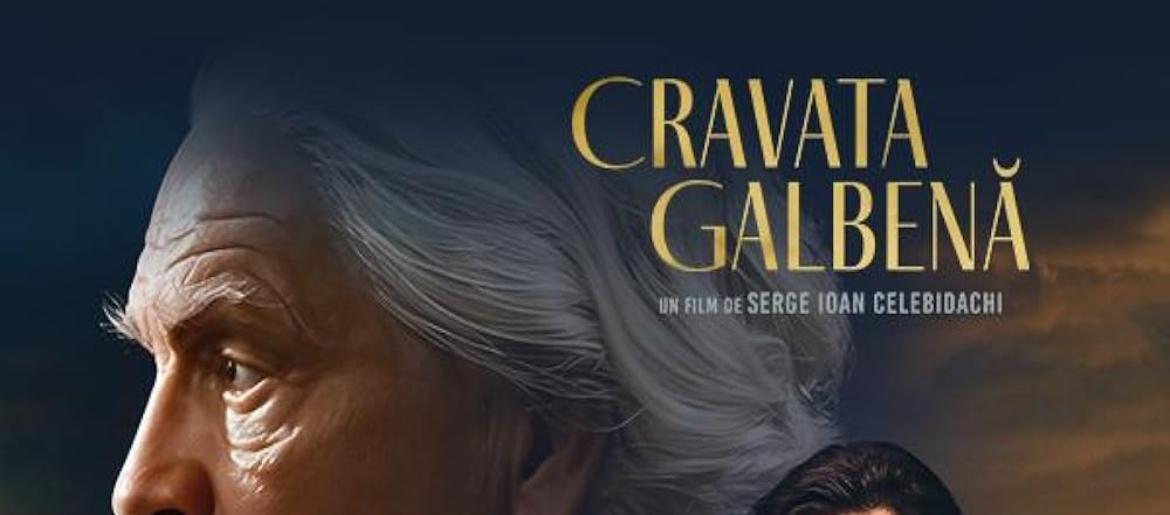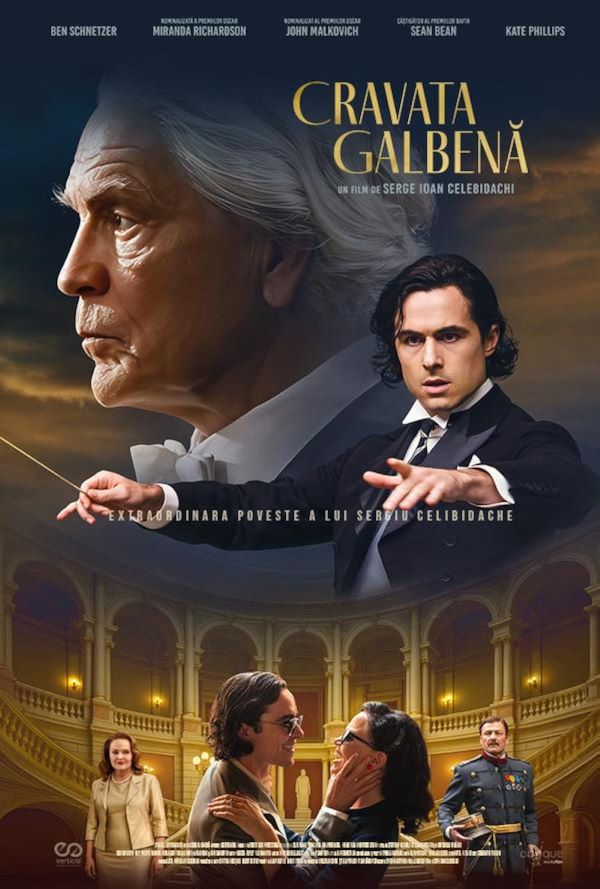
The Yellow Tie Font
What Font Does The Yellow Tie Use?
The Yellow Tie font (from the film also known as Cravata Galbenă) uses Fino Sans Regular, a refined commercial typeface by TypeTogether known for its clean forms and elegant proportions. Its smooth, modern aesthetic reflects the film’s polished yet emotionally grounded tone. While the original font is not free, we also found a free alternative font that closely matches the look of Fino Sans Regular, offering a similar contemporary feel for personal design projects inspired by the movie’s visual identity.
About The Yellow Tie (Cravata Galbenă)
The Yellow Tie is a Romanian biographical drama that follows the life of acclaimed conductor Sergiu Celibidache, tracing his extraordinary journey from a troubled childhood to becoming one of the most respected figures in classical music. The film explores his relentless pursuit of perfection, his unconventional philosophies about performance, and the emotional complexity behind his genius. With intimate character work, sweeping musical themes, and a narrative that spans decades, the movie offers a powerful portrait of passion, discipline, and the sacrifices made in the name of art.